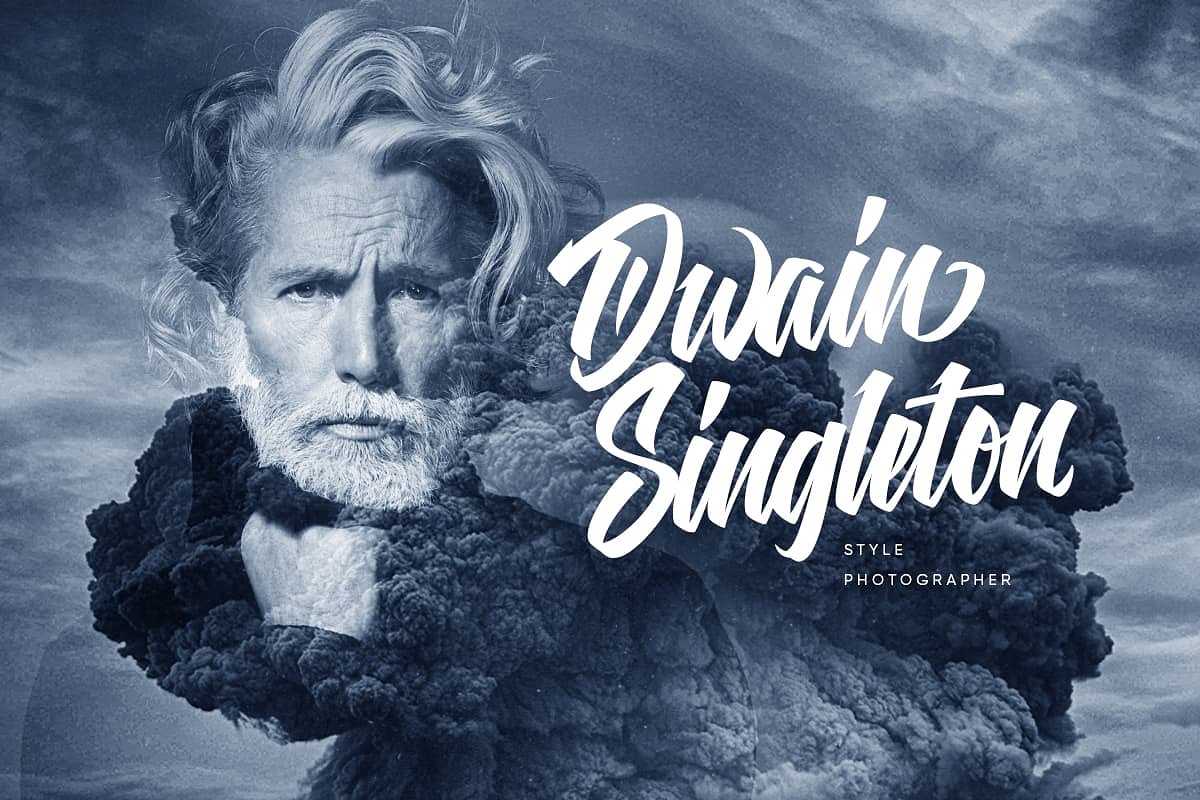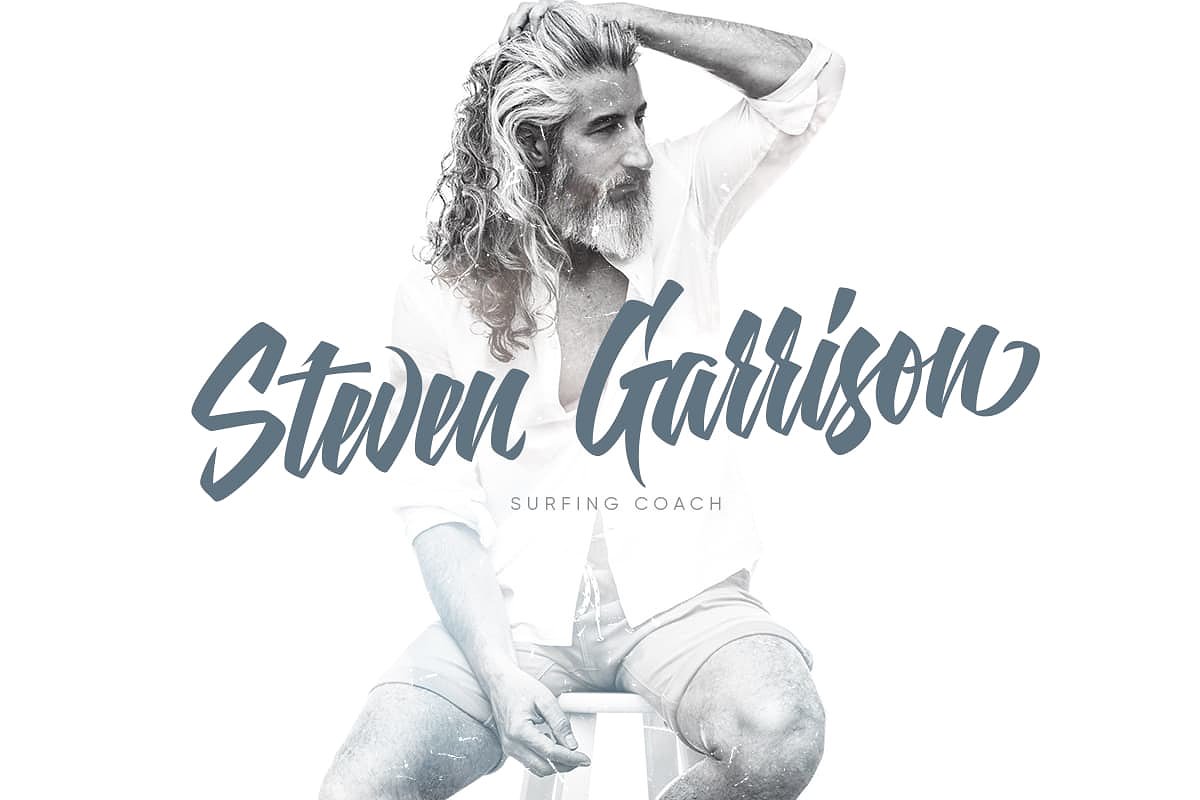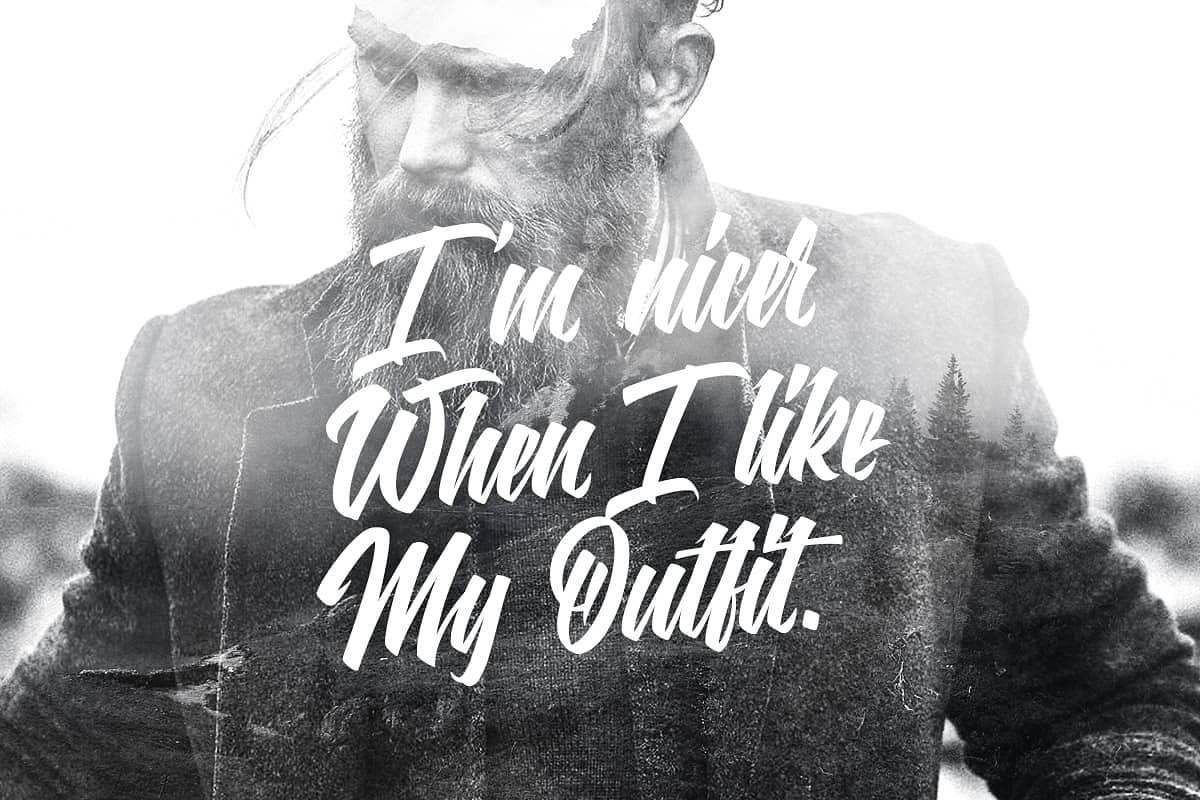
Hidden Soul Font
Introducing the new “Hidden Soul” Clean & Rough Style.
Hidden Soul is a script typeface with personality. Ideal for logos, name tag, quotes, product packaging, merchandise, social media & greeting cards.
Hidden Soul comes with uppercase, lowercase, numerals, punctuations and so many variations on each characters include opentype alternates, ligatures and multilingual support.